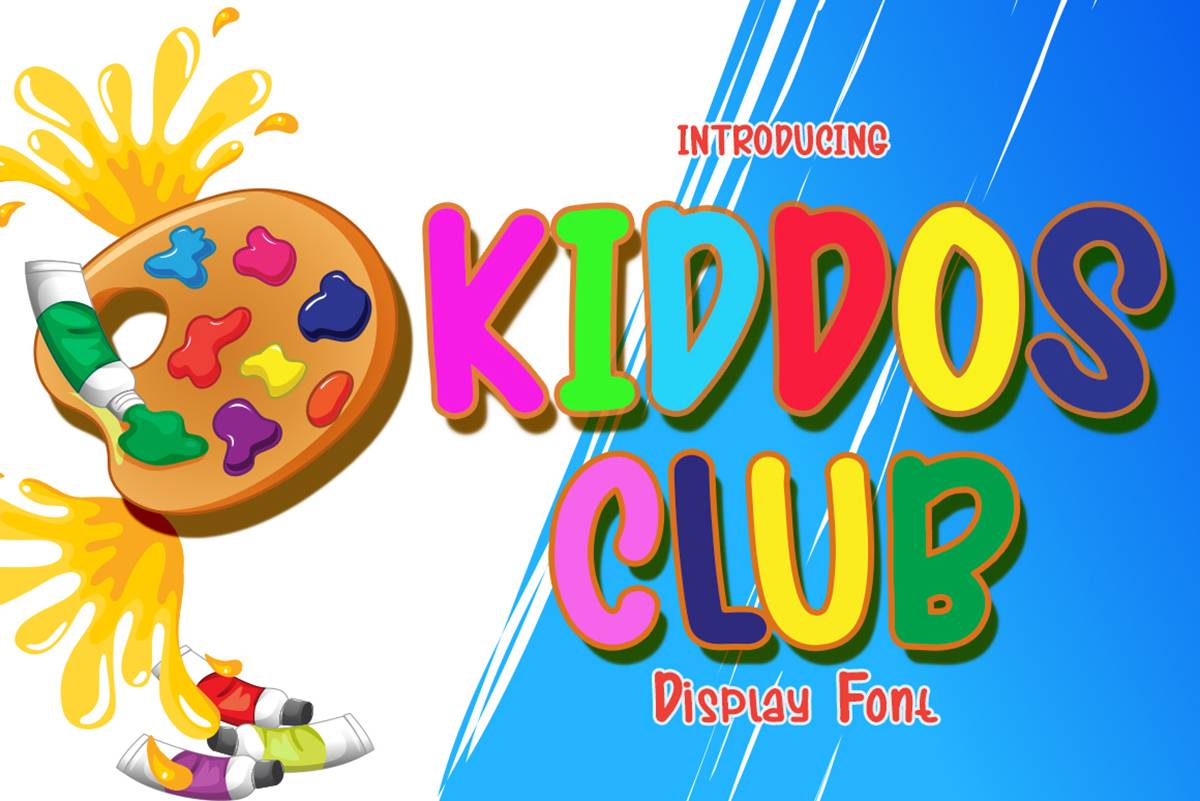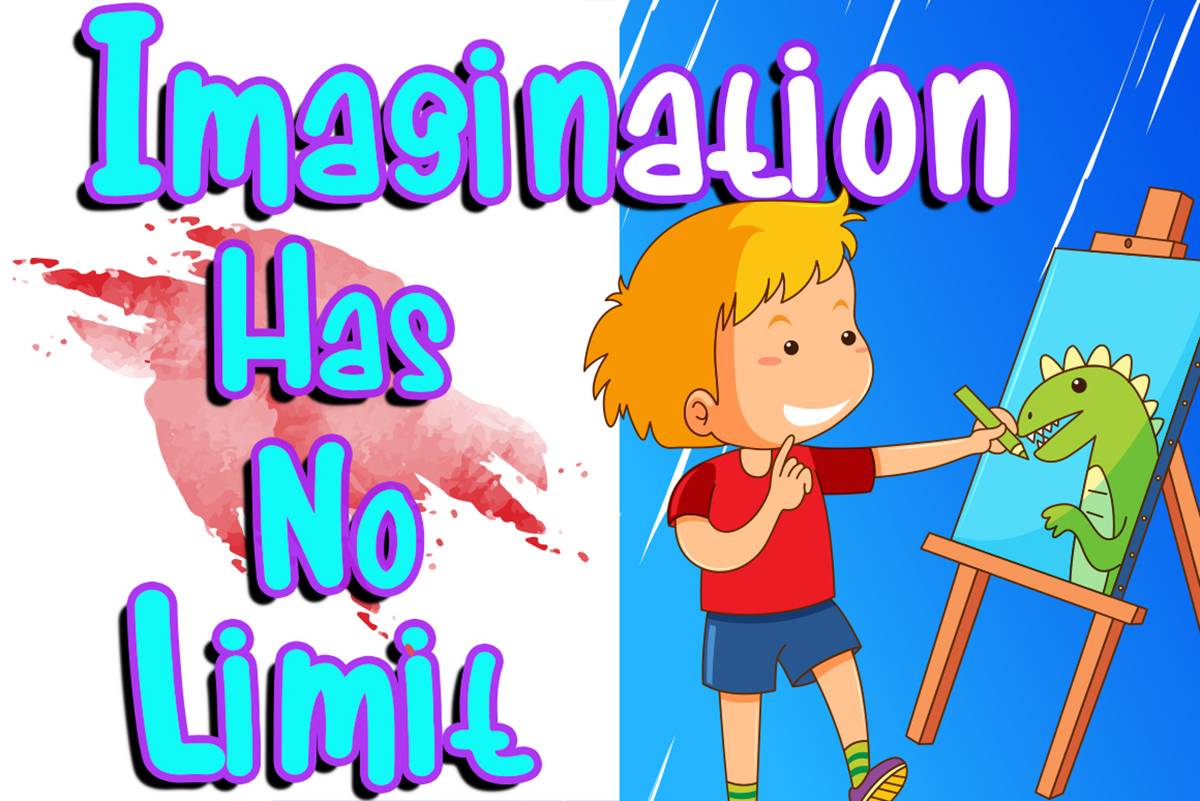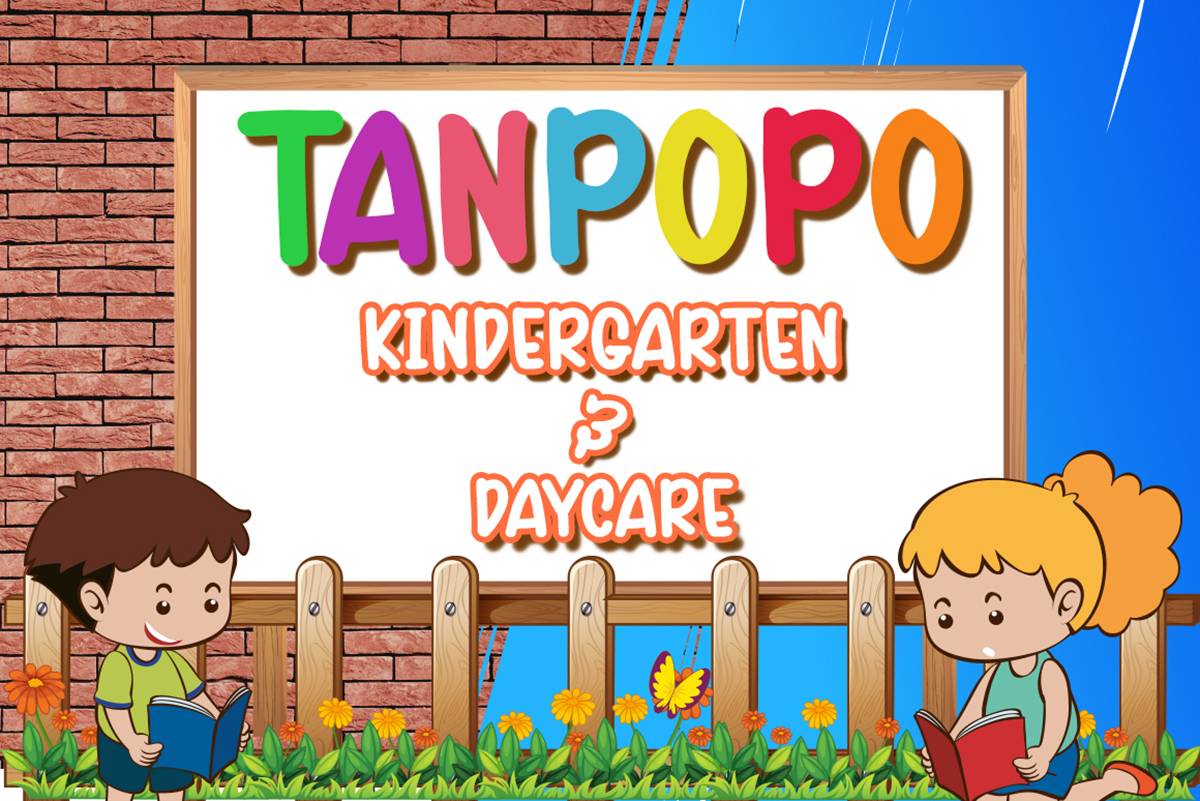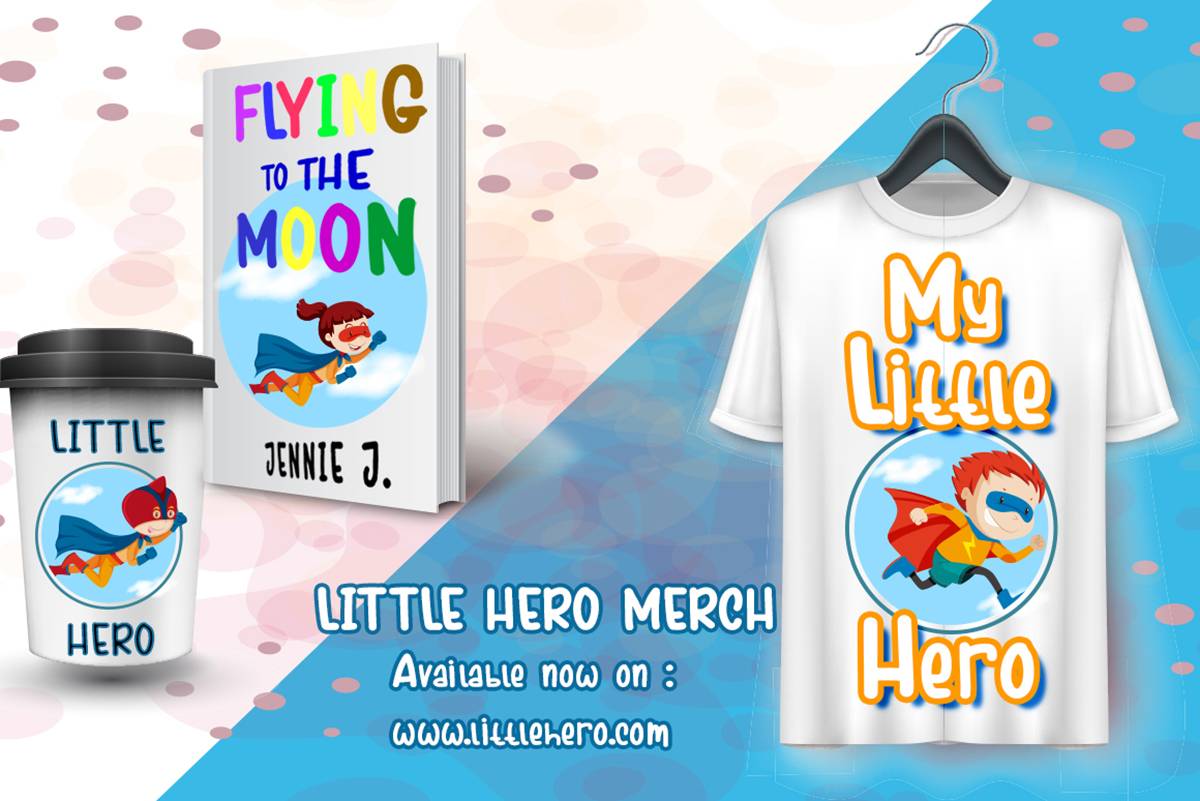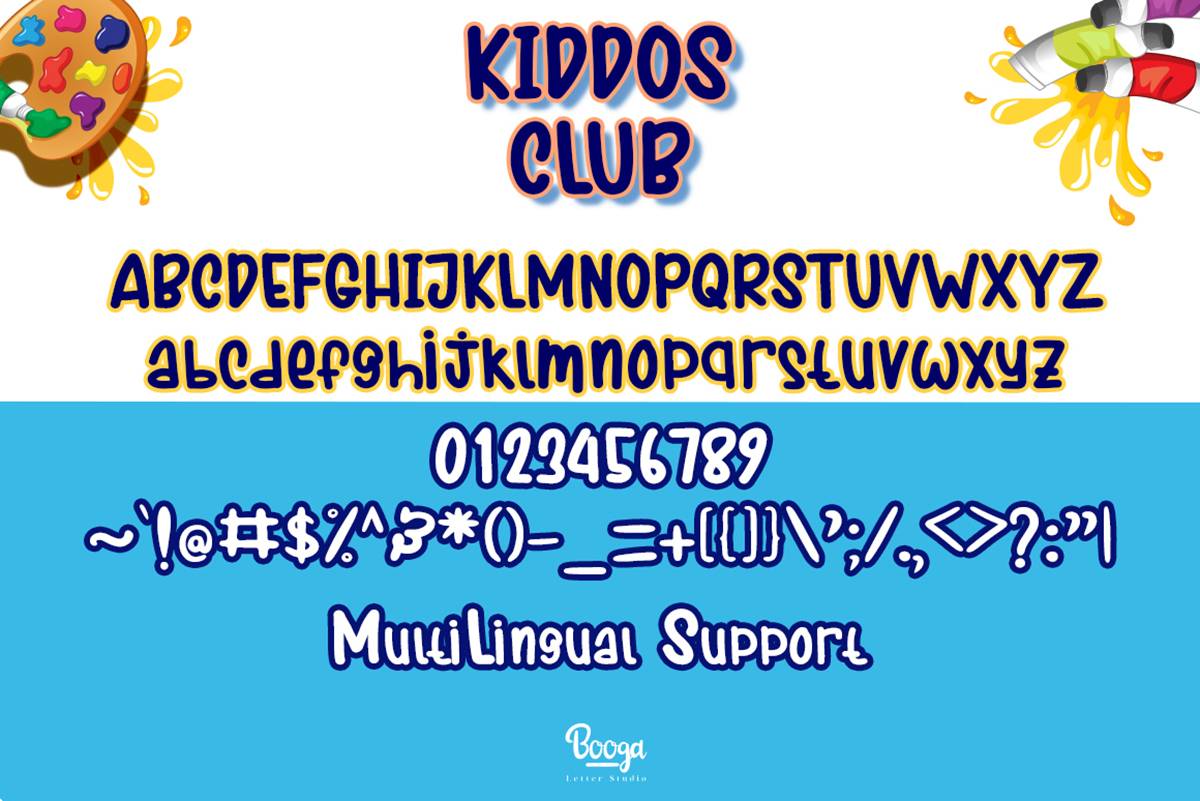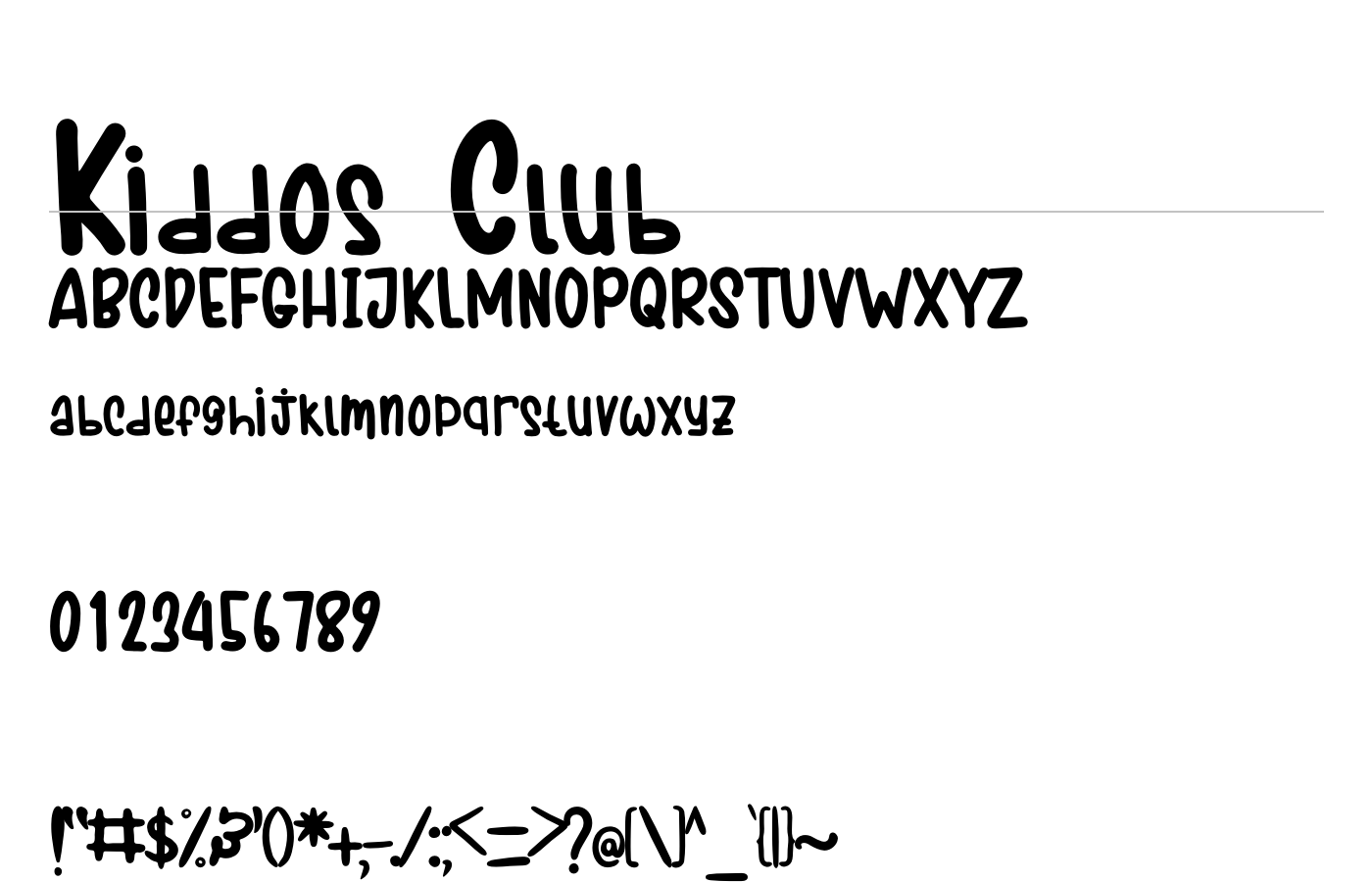
Kiddos Club is a playful, hand-drawn sans serif font with a casual and friendly style that feels perfect for children’s projects. Its irregular, rounded letterforms with moderate weight and quirky shapes create a lively and approachable look, making it ideal for fun branding, kids' books, or playful headlines. This font brings an energetic and informal vibe, perfect for designs that want to convey warmth and creativity.
Kiddos Club Font
About Kiddos Club Font
| Font family | Kiddos Club Font |
| Designer | Fajar Wicaksono |